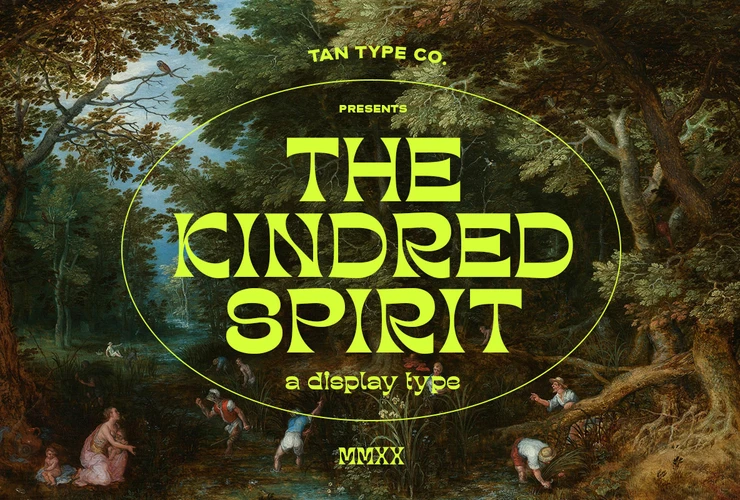
About TAN KINDRED
TAN – KINDRED is a reverse contrast display typeface. It’s quirky and fun, ready to be use for any project you have in mind. Please take a look at its sibling, TAN – PARADISO